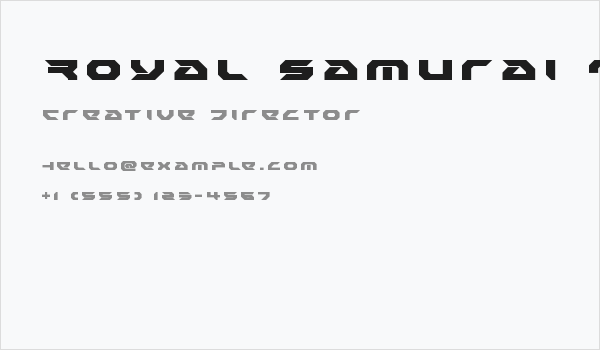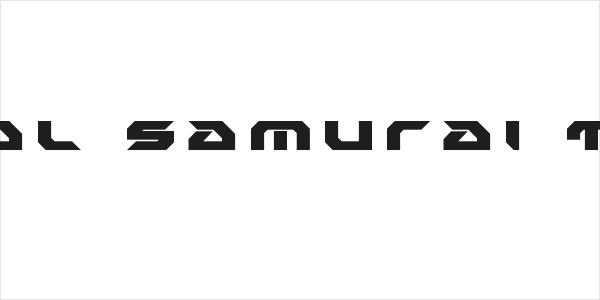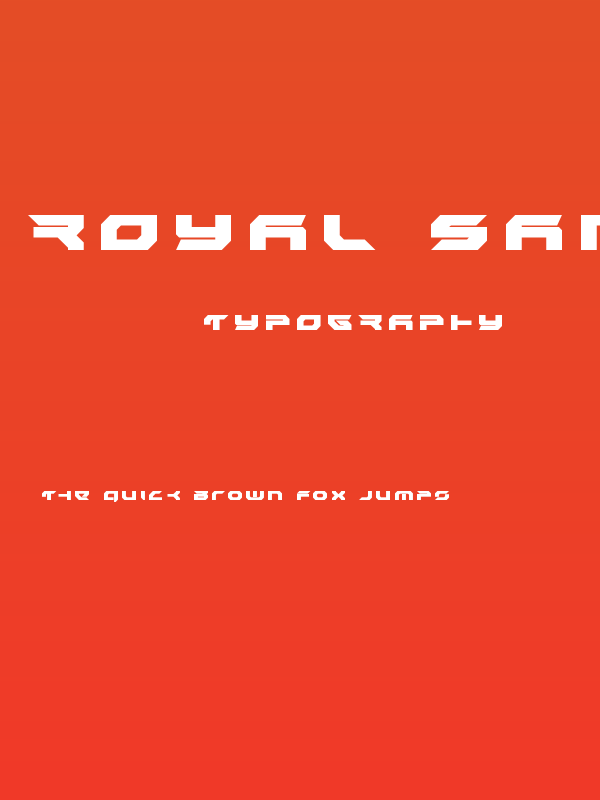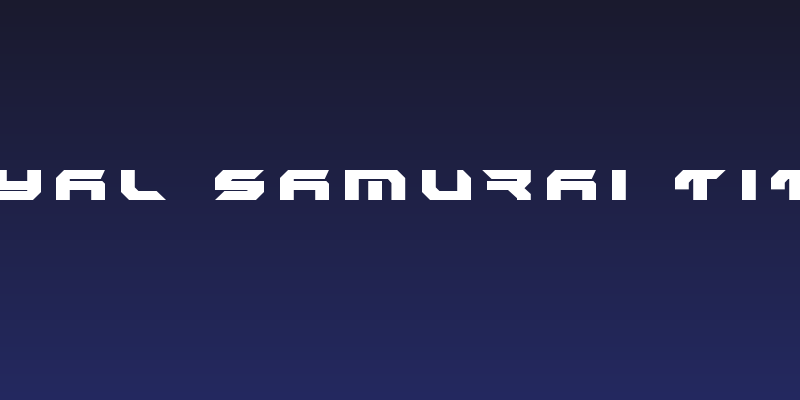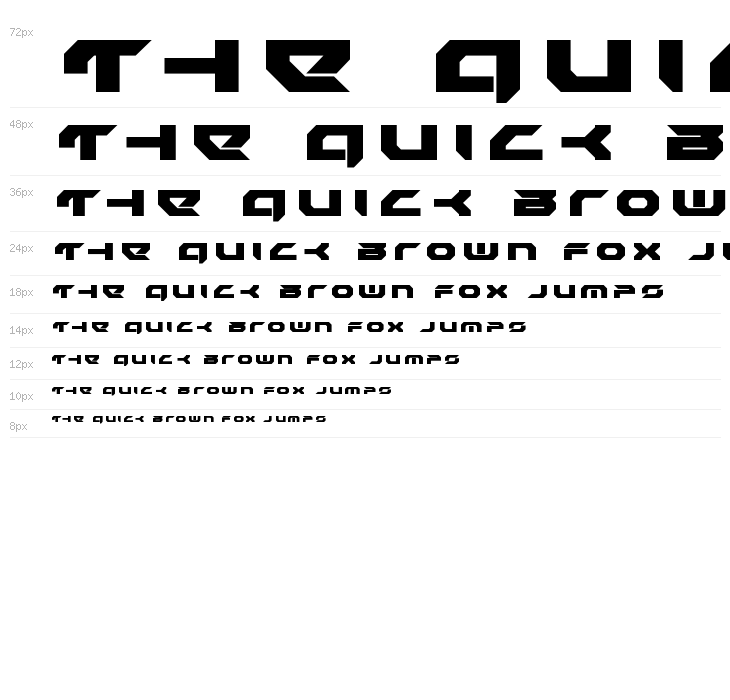
Royal Samurai Title Font
Royal Samurai Title Description
This font features a bold and striking design with sharp, angular lines that give it a futuristic and edgy appearance. The characters are constructed with a geometric style, incorporating both straight edges and pointed corners, which create a sense of movement and energy. The uppercase and lowercase letters maintain a consistent style, ensuring uniformity across the text. The numbers and special characters are designed to match the overall aesthetic, making this font suitable for a cohesive visual presentation. Its unique style makes it stand out, ideal for projects that require a modern and dynamic look.